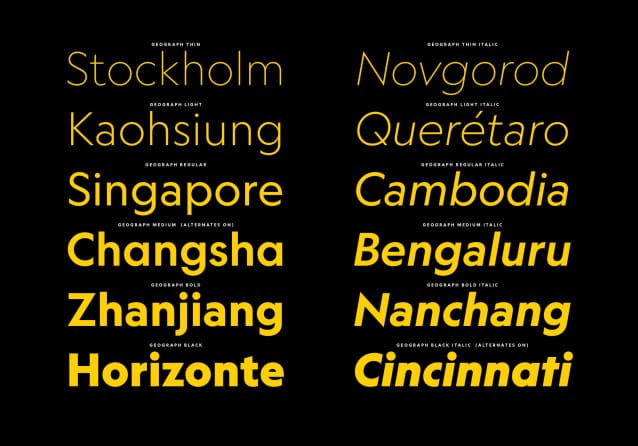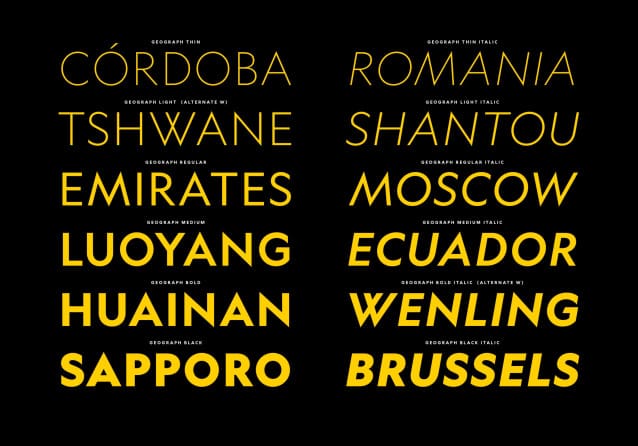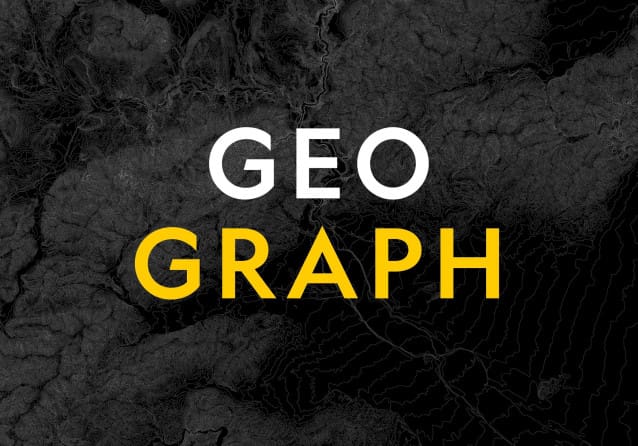
Geograph Font
Geograph Font, is a contemporary, geometric sans serif originally designed for National Geographic. We visited the historic wellsprings of geometric and grotesk typefaces, drawing upon idealism of Futura and the pragmatism of Super Grotesk. Geograph’s suite of alternate letterforms enable flexible typographic textures and tones.